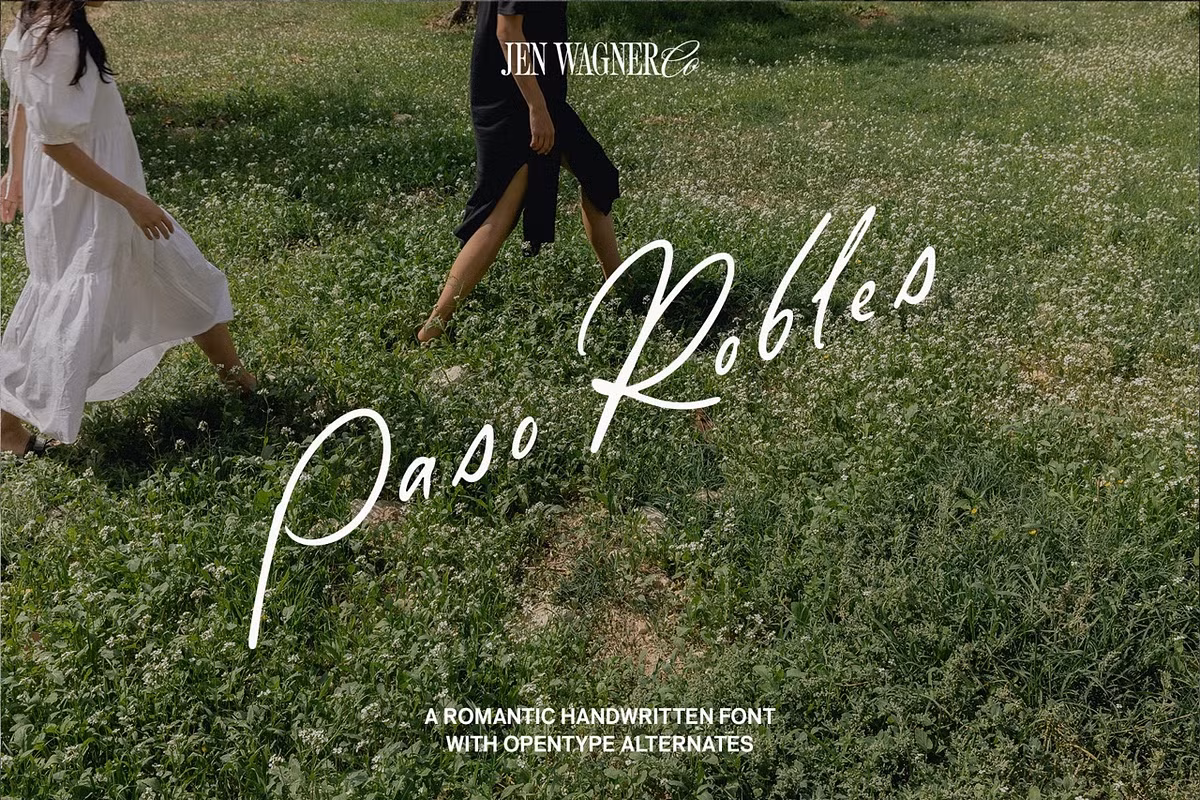
Paso Robles | Handwritten Script Free Download
Paso Robles | Handwritten Script Font Free Download
The Paso Robles | Handwritten Script Font Free Download is a charming and elegant handwritten script typeface that brings a personal, artistic touch to your designs. Perfect for wedding invitations, branding, greeting cards, and social media graphics, this font combines fluid, flowing strokes with a natural, hand-lettered feel.
With its smooth curves and sophisticated style, Paso Robles is ideal for adding a personal, refined touch to your projects. It includes uppercase and lowercase letters, numbers, punctuation, and multilingual support, offering versatility for a wide range of design needs.